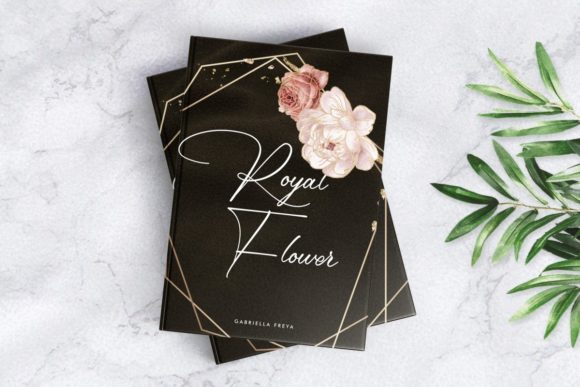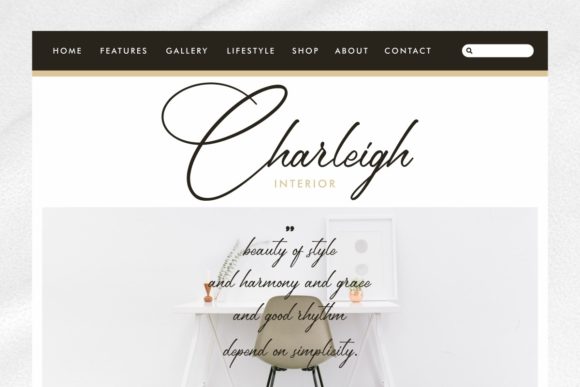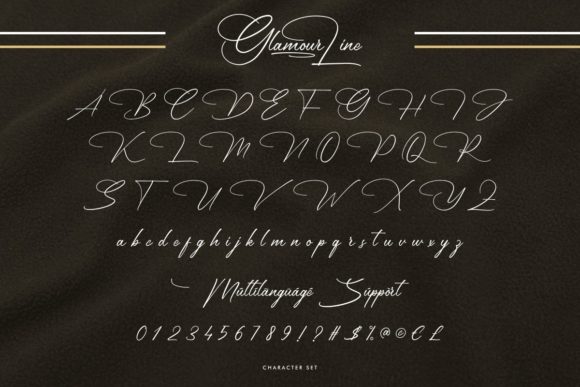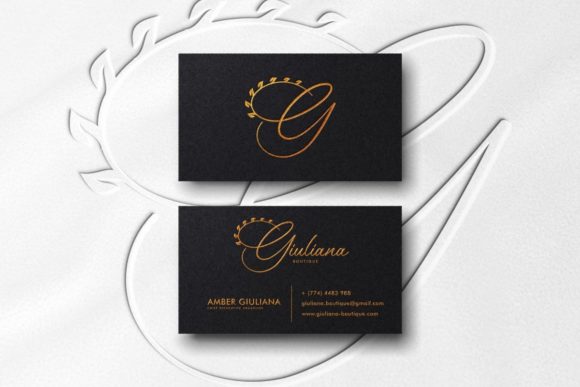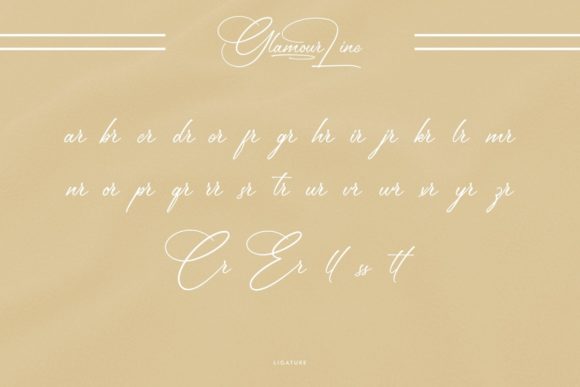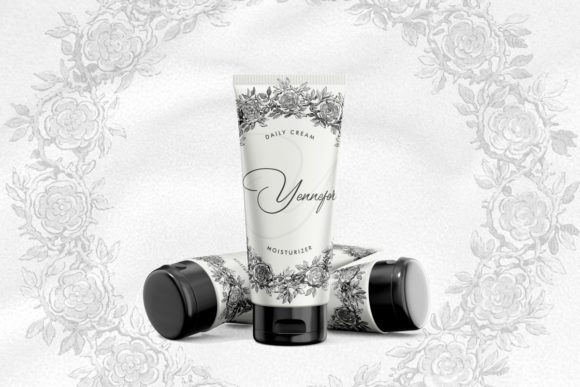
Glamour Line Font: Elevate Your Designs with Elegance and Sophistication
In the world of typography, the right font can make all the difference in elevating your design from ordinary to extraordinary. For designers and crafters seeking to add a touch of elegance and sophistication to their work, the Glamour Line Font is an exceptional choice. This stunning script font is designed to bring a delicate, handwritten touch to a wide range of projects, from wedding invitations and greeting cards to logos and business cards.
What Makes Glamour Line Font Special?
Glamour Line is a thin lettered and delicate script font that exudes refinement and luxury. Its intricate, cursive letters are carefully crafted to create a sense of fluidity and movement, making it perfect for designs that require a personal and elegant touch. Whether you’re working on a wedding invitation, a thank you card, or a quote, this font is sure to impress.
Key Features of Glamour Line Font
- Thin Lettered and Delicate: The Glamour Line Font features thin, delicate letters that are perfect for creating elegant and sophisticated designs.
- Script Font: This beautiful script font is designed to mimic the look of handwritten script, adding a personal touch to your designs.
- PUA Encoded: The Glamour Line Font is PUA (Private Use Area) encoded, which means you can access all of the glyphs and swashes with ease. This makes it simple to customize your designs and add unique flourishes.
- Versatile: This font is suitable for a wide range of design projects, including wedding invitations, thank you cards, quotes, greeting cards, logos, and business cards.
The Glamour Line Font is an excellent choice for designers and crafters who want to create beautiful, professional-looking designs without spending hours on tedious lettering. With this font, you can quickly and easily create stunning designs that are sure to impress your clients or audience.
Use Cases for Glamour Line Font
The Glamour Line Font is incredibly versatile and can be used in a variety of design projects, including:
- Wedding Invitations: Add a touch of elegance and sophistication to your wedding invitations with the Glamour Line Font.
- Thank You Cards: Create beautiful, personalized thank you cards that are sure to impress your friends and family.
- Quotes: Use the Glamour Line Font to create stunning quote graphics that are perfect for social media or blogs.
- Greeting Cards: Create beautiful greeting cards for special occasions, such as birthdays, anniversaries, or holidays.
- Logos: Use the Glamour Line Font to create elegant and sophisticated logos for your business or brand.
- Business Cards: Add a touch of professionalism and elegance to your business cards with the Glamour Line Font.
Tips for Getting the Most Out of Glamour Line Font
To get the most out of the Glamour Line Font, here are a few tips:
- Experiment with Different Sizes: The Glamour Line Font looks beautiful in a variety of sizes, so don’t be afraid to experiment to find the perfect size for your design.
- Use Swashes and Glyphs: Take advantage of the PUA encoding and use the swashes and glyphs to add unique flourishes to your designs.
- Pair with Other Fonts: The Glamour Line Font pairs beautifully with other fonts, so don’t be afraid to experiment with different font combinations.
The Glamour Line Font is a stunning script font that is perfect for designers and crafters seeking to add a touch of elegance and sophistication to their work. With its thin lettered and delicate design, PUA encoding, and versatility, this font is sure to become a favorite in your design arsenal. Whether you’re working on a wedding invitation, a logo, or a greeting card, the Glamour Line Font is an excellent choice.